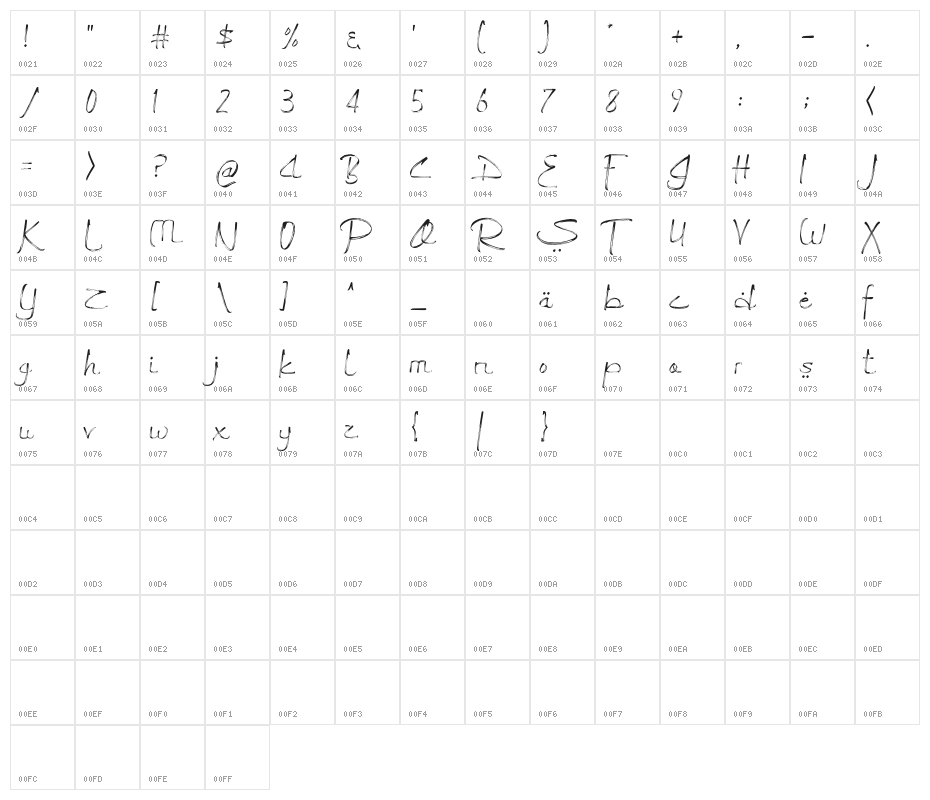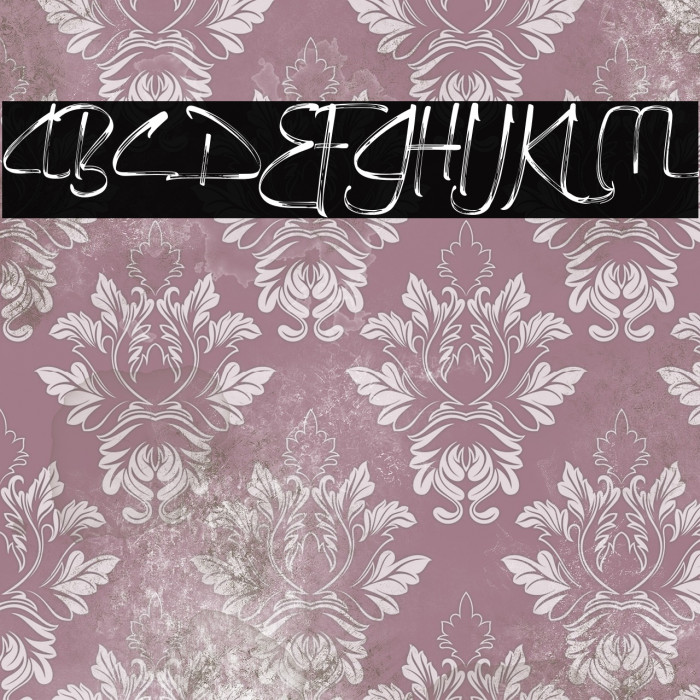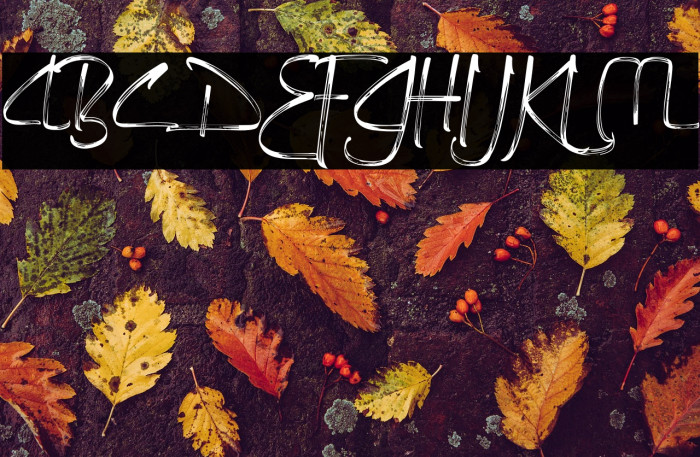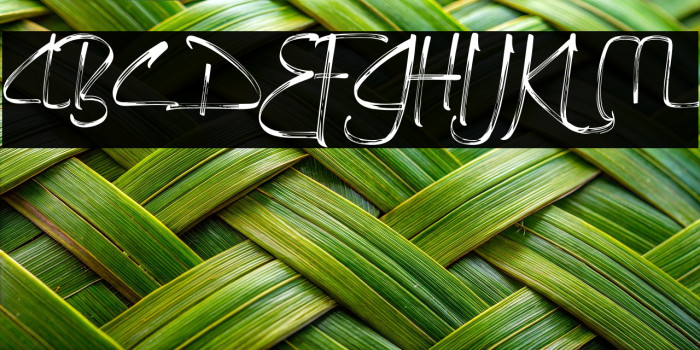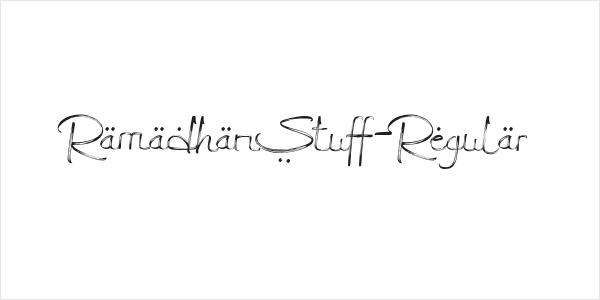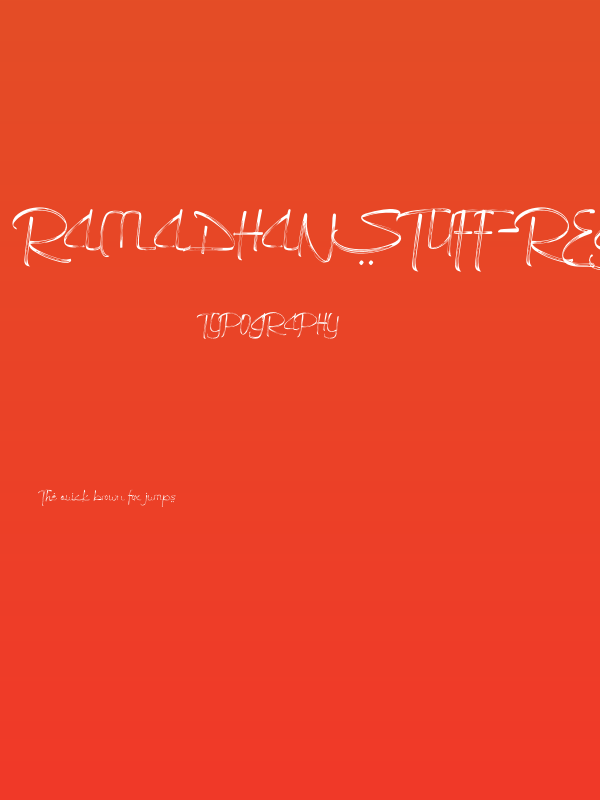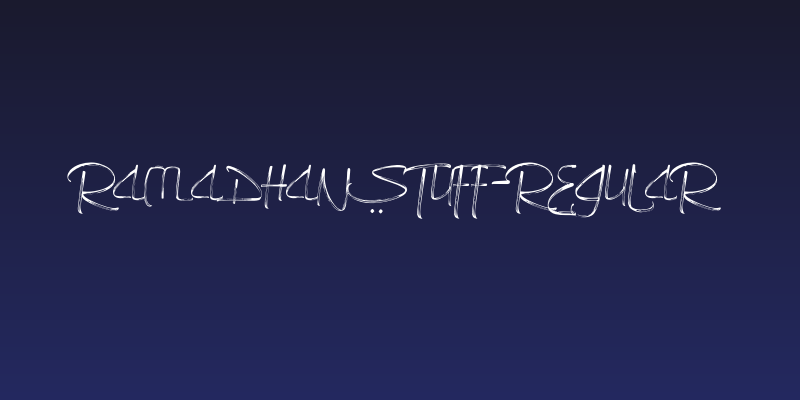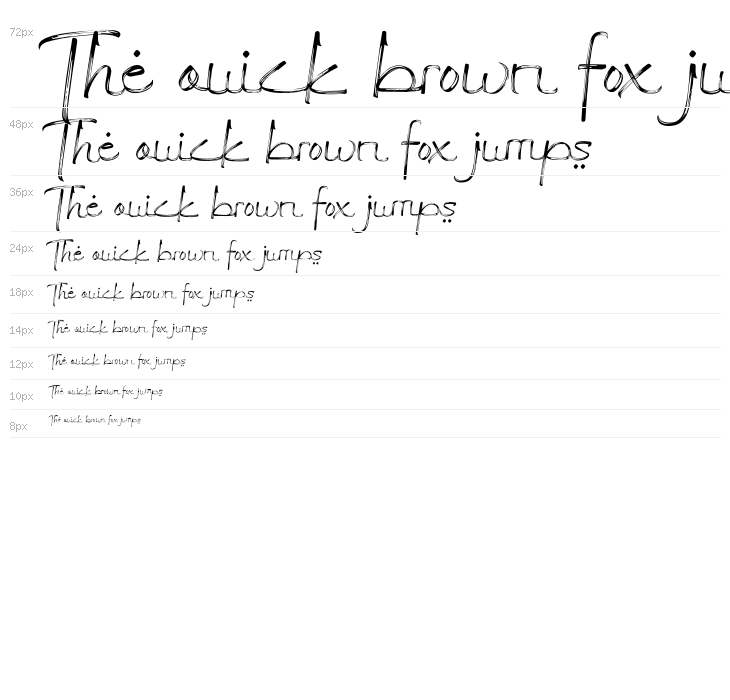
RamadhanStuff-Regular Font
RamadhanStuff-Regular Description
This font features a dynamic and expressive handwritten style, characterized by its fluid strokes and artistic flair. The letters are crafted with a sense of movement, giving each character a unique and personal touch. The uppercase letters are bold and sweeping, while the lowercase letters maintain a consistent flow, adding to the overall harmony of the design. Numbers and special characters are integrated seamlessly, maintaining the font's cohesive aesthetic. This font is ideal for projects that require a personal, artistic touch, such as invitations, greeting cards, or creative branding.
Proposed ProjectsIdeal for invitations, greeting cards, creative branding, and artistic projects.